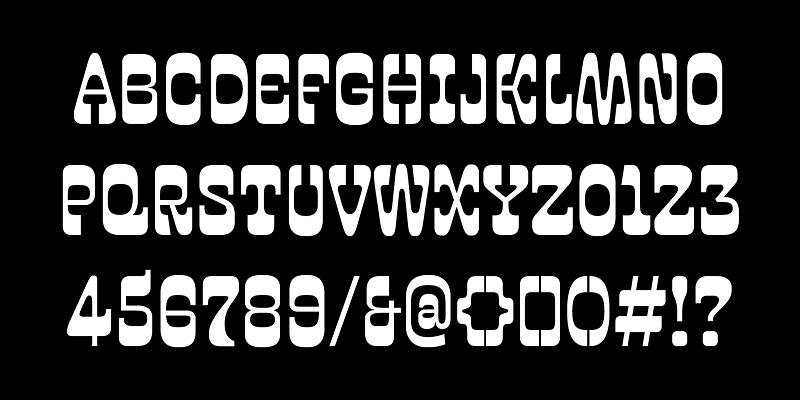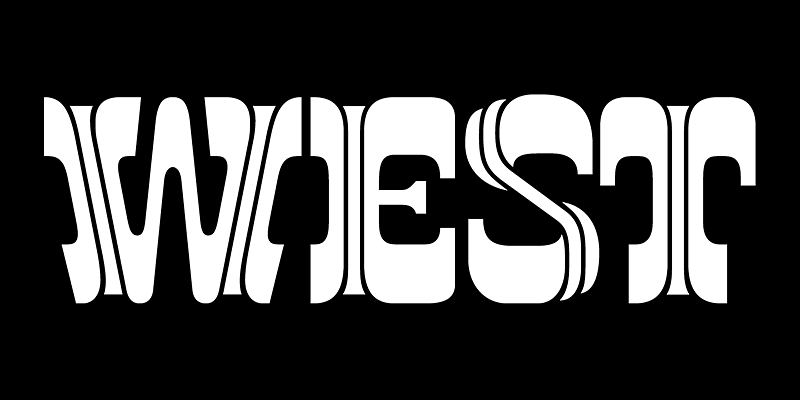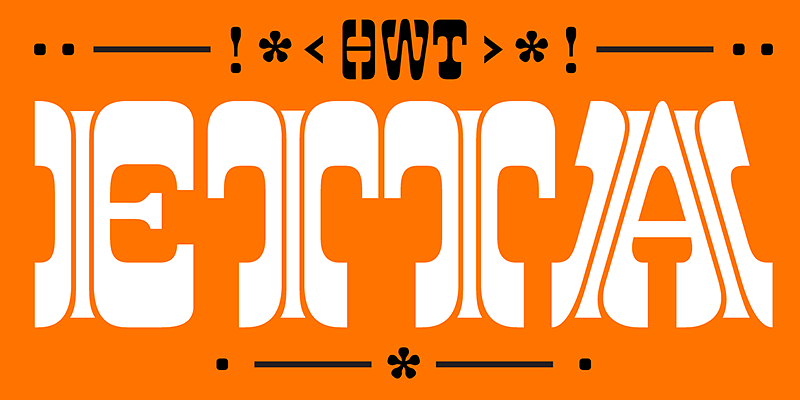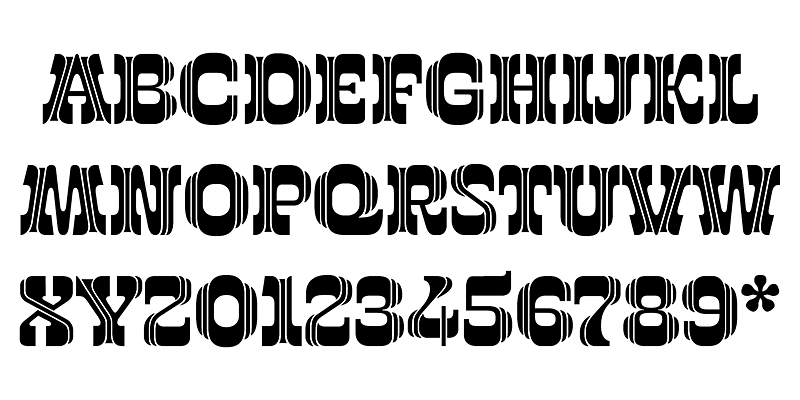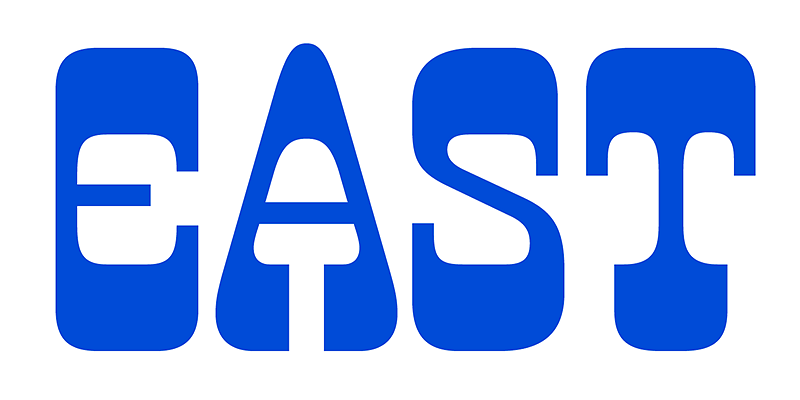
HWT Etta is a fun display typeface that has two styles: East and West! Its two variations ensure you have maximum wood type swagger in every display size that you might want.